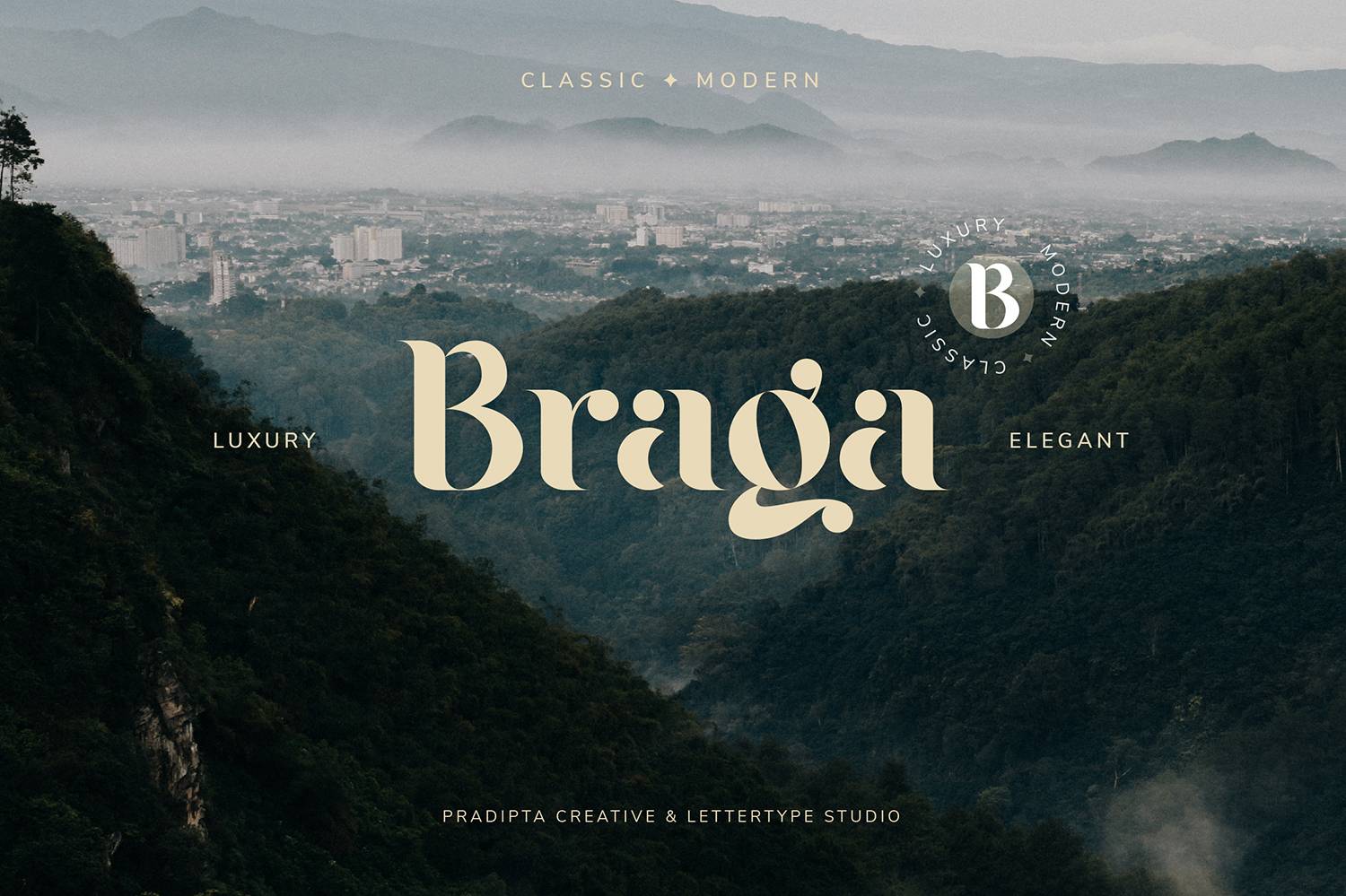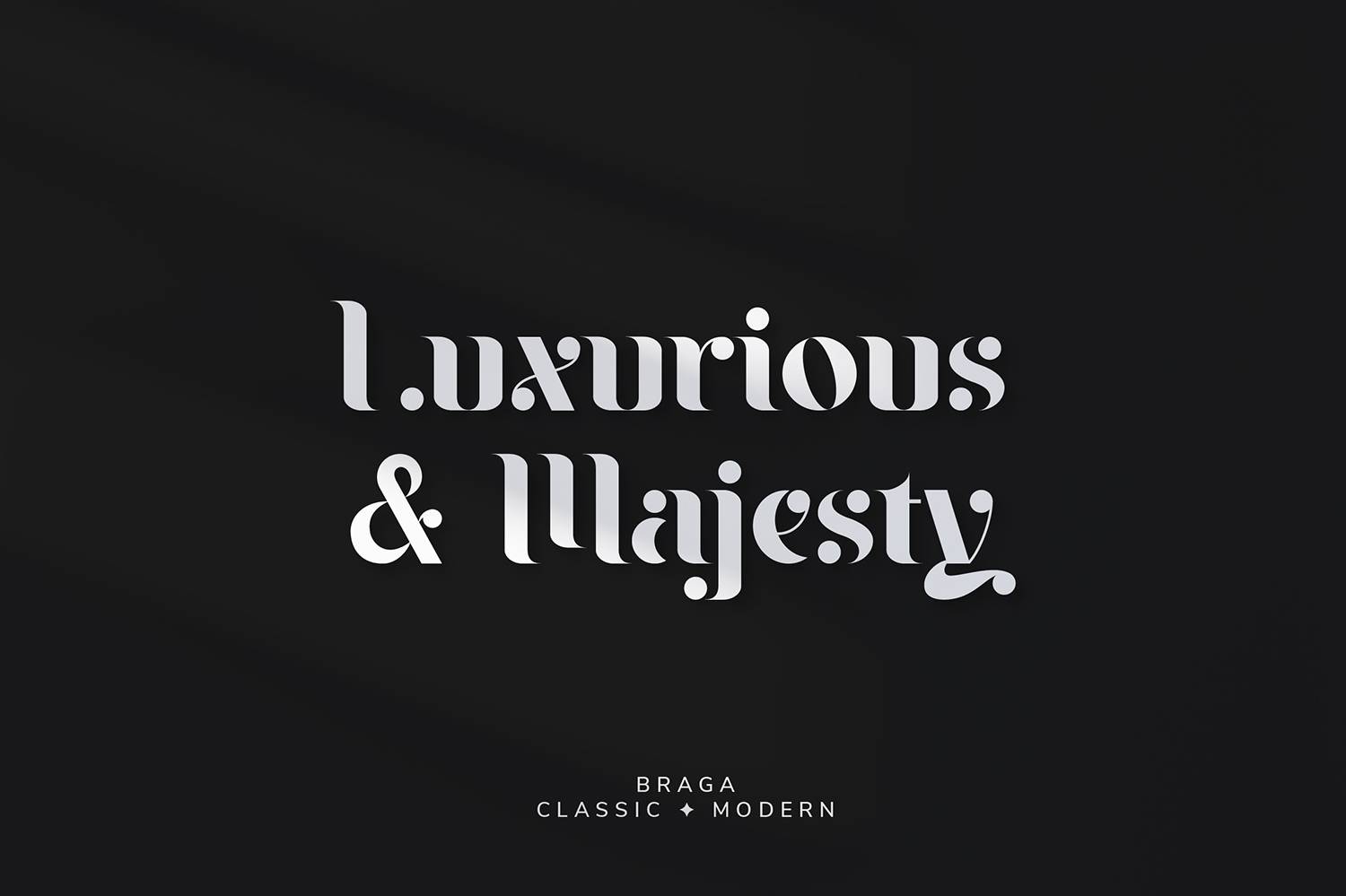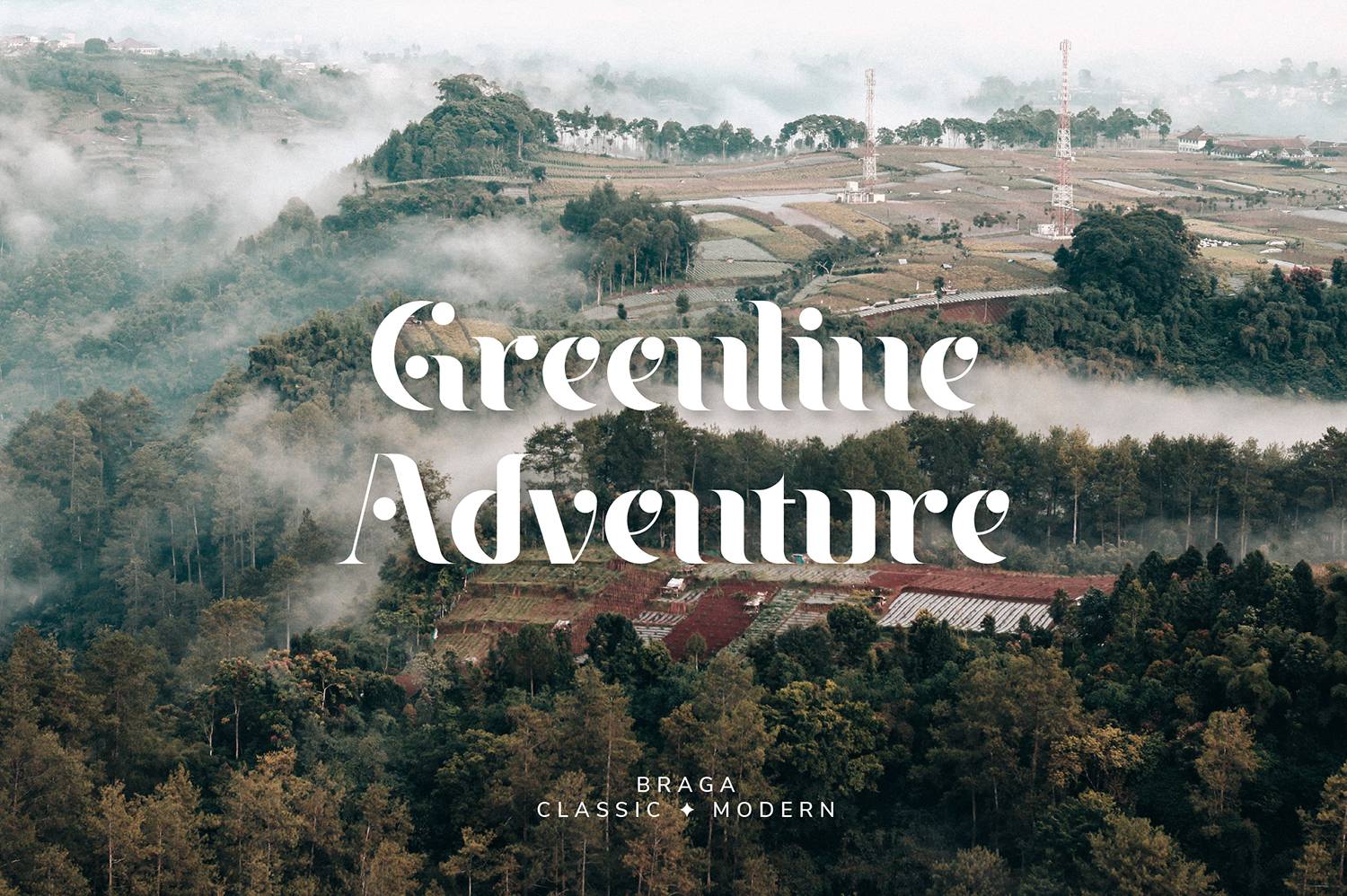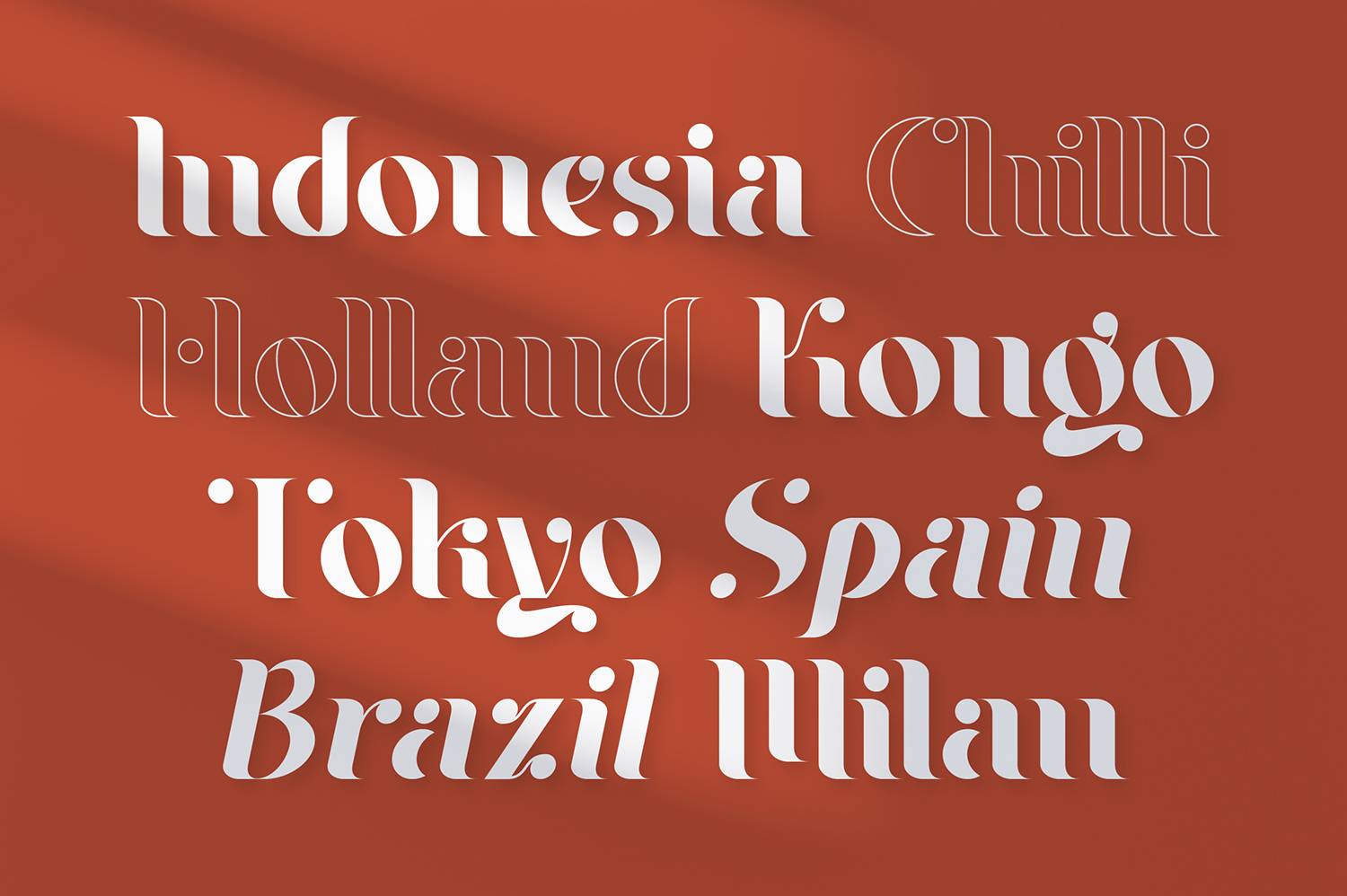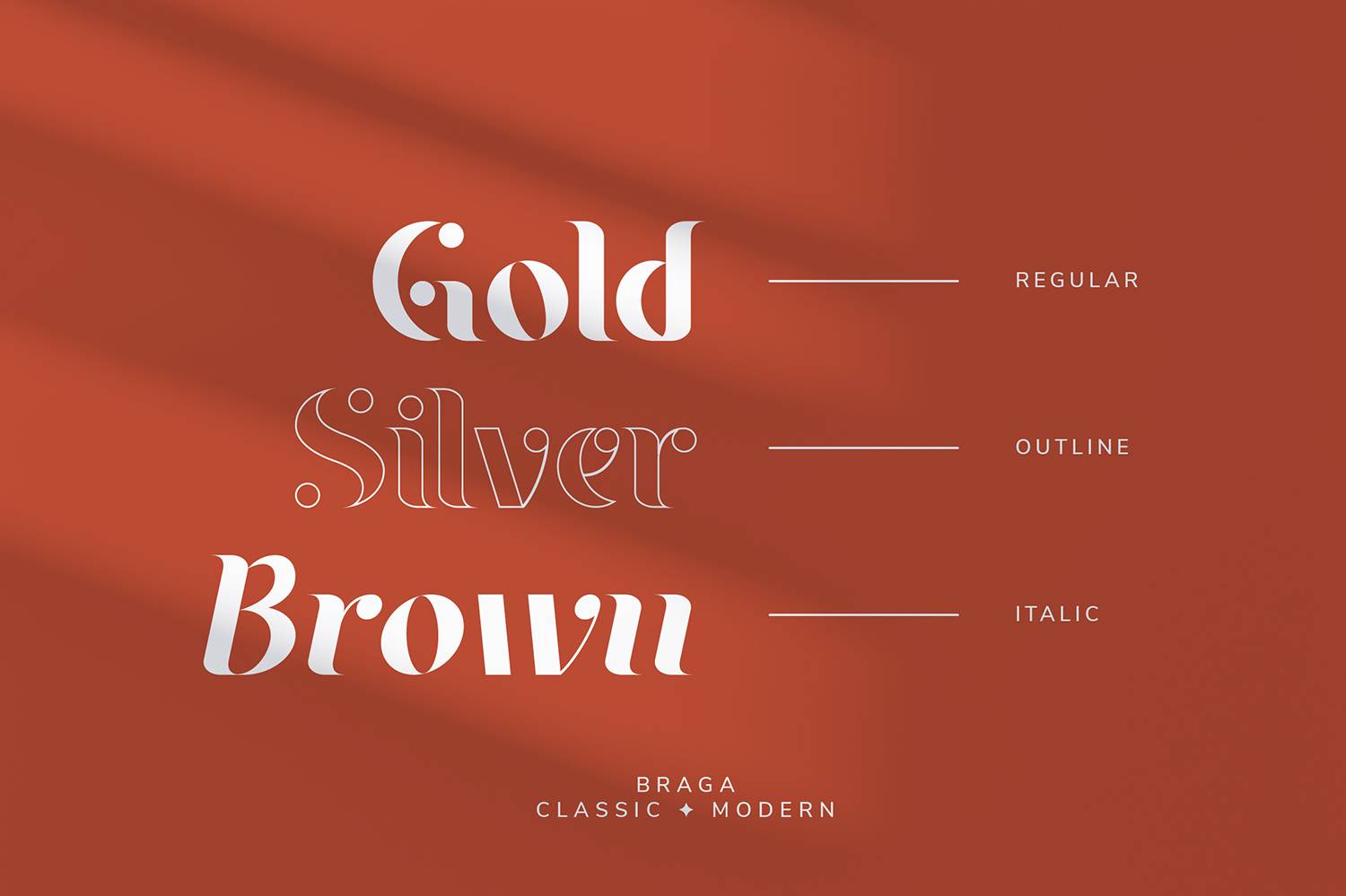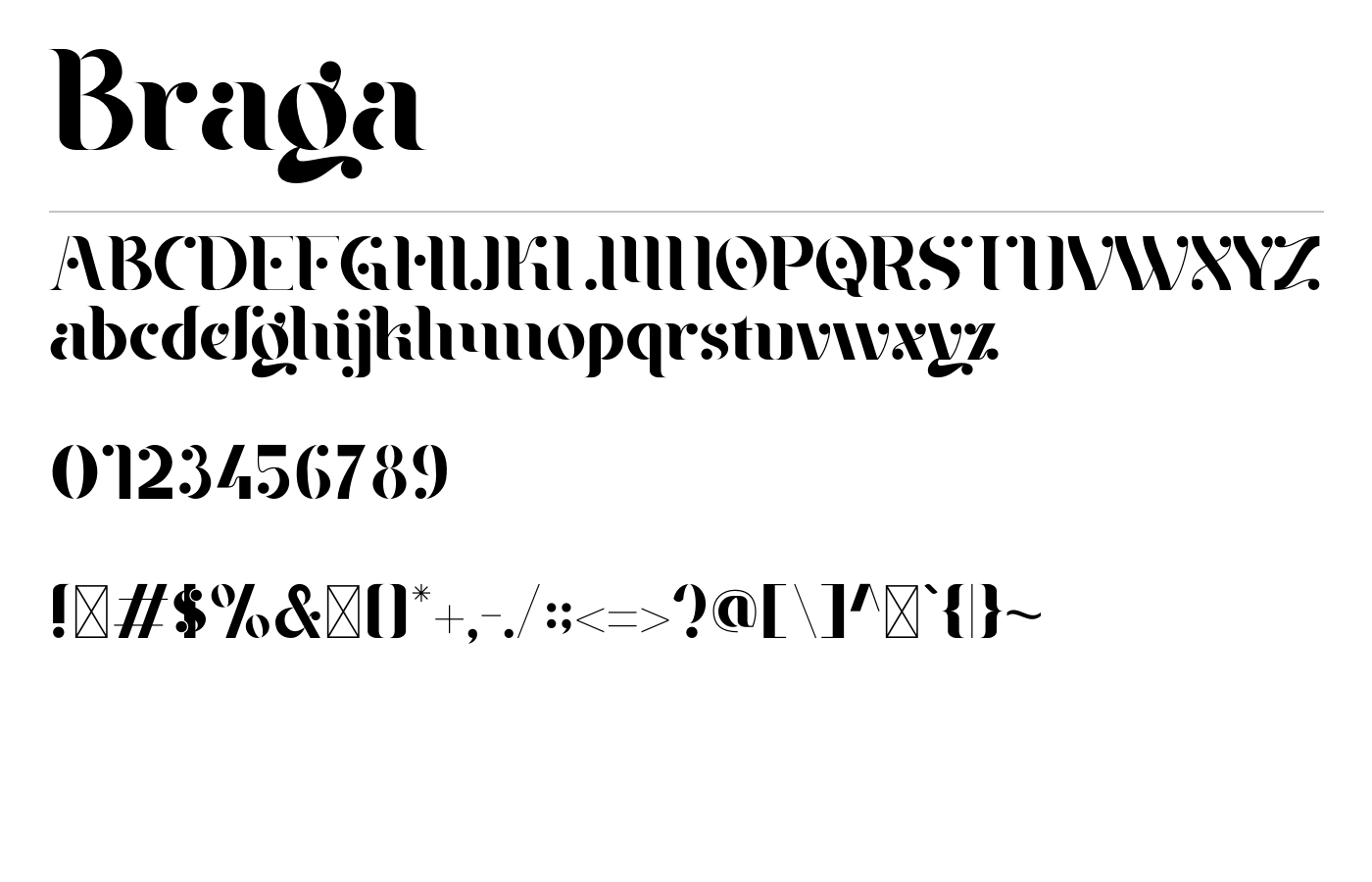
Braga Serif is a bold, high-contrast serif font with a unique blend of modern elegance and artistic flair. Its stylized letterforms, featuring sharp edges and striking curves, create a distinctive and playful personality perfect for eye-catching headlines, luxury branding, and creative editorial use. With its strong presence and decorative details, Braga Serif works beautifully where you want to make a memorable visual impact.
Braga Serif Font
About Braga Serif Font
| Font family | Braga Serif Font |
| Designer | Diki Pradipta Tri Atmojo |